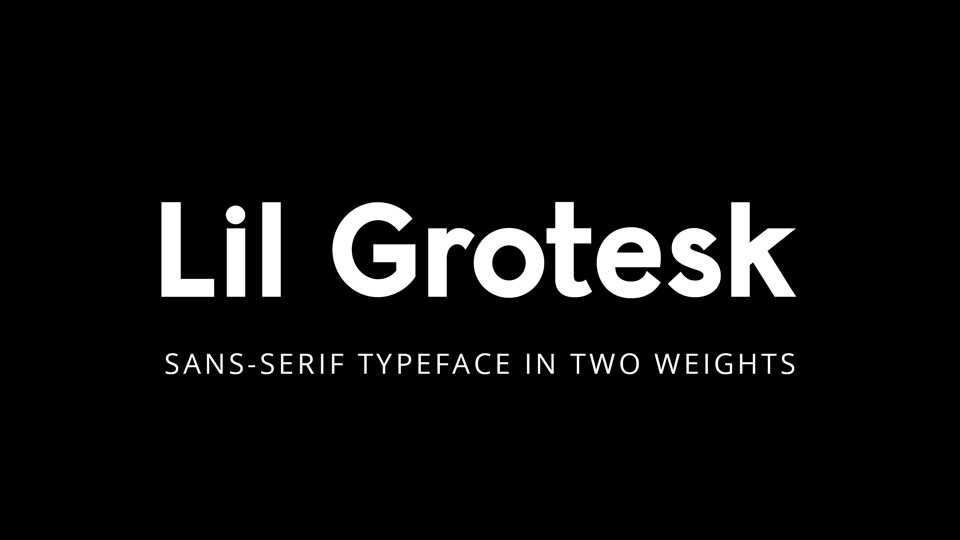
Download Lil Grotesk typeface, a geometric sans serif font family in two weights. Lil Grotesk font is perfect for headlines, short texts, posters, logos, branding and more.
Designer: Bastien Sozeau